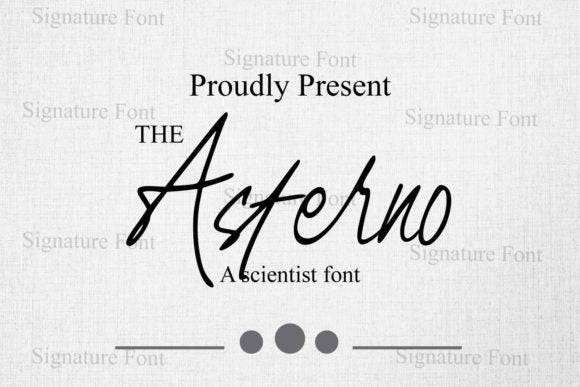
Asterno Font for Cricut, Silhouette and Printable Designs
This digital font includes a professionally designed typeface tailored for cutting machines and print-based design tools. Asterno offers a sleek, contemporary look that’s ideal for crafters and designers seeking clean lines and strong readability. As a font entity, it ensures reliable results across vinyl, paper, and digital mediums. In addition to its versatility, Asterno pairs effortlessly with other design elements, making it a perfect choice for various applications. Whether you are creating intricate invitations or larger signage, the balinera font for crafting projects provides a distinct flair that elevates your designs. Its balance of style and functionality ensures that every project stands out with professionalism and creativity. The versatility of the Astrud font for cutting machines allows users to achieve stunning designs with ease, enhancing both personal and professional projects. Its balanced letterforms and versatile character set make it suitable for a wide range of creative endeavors, from personalized gifts to professional branding. With its user-friendly design, Asterno empowers crafters to bring their unique visions to life seamlessly.
Asterno is perfect for stylish labels, personalized gifts, wall art, and small business branding where clarity and charm are key. It delivers consistent, professional output whether printed or cut.
- Clean design perfect for precision cutting
- Elegant yet simple for broad design appeal
| Feature | Asterno Font | Generic Craft Font A | Generic Craft Font B |
| Design Style | Modern and minimal sans-serif | Handwritten script | Vintage serif |
| Cutting Machine Friendly | Yes - smooth edges and path precision | Moderate - decorative elements may require tweaking | Good - works best at larger sizes |